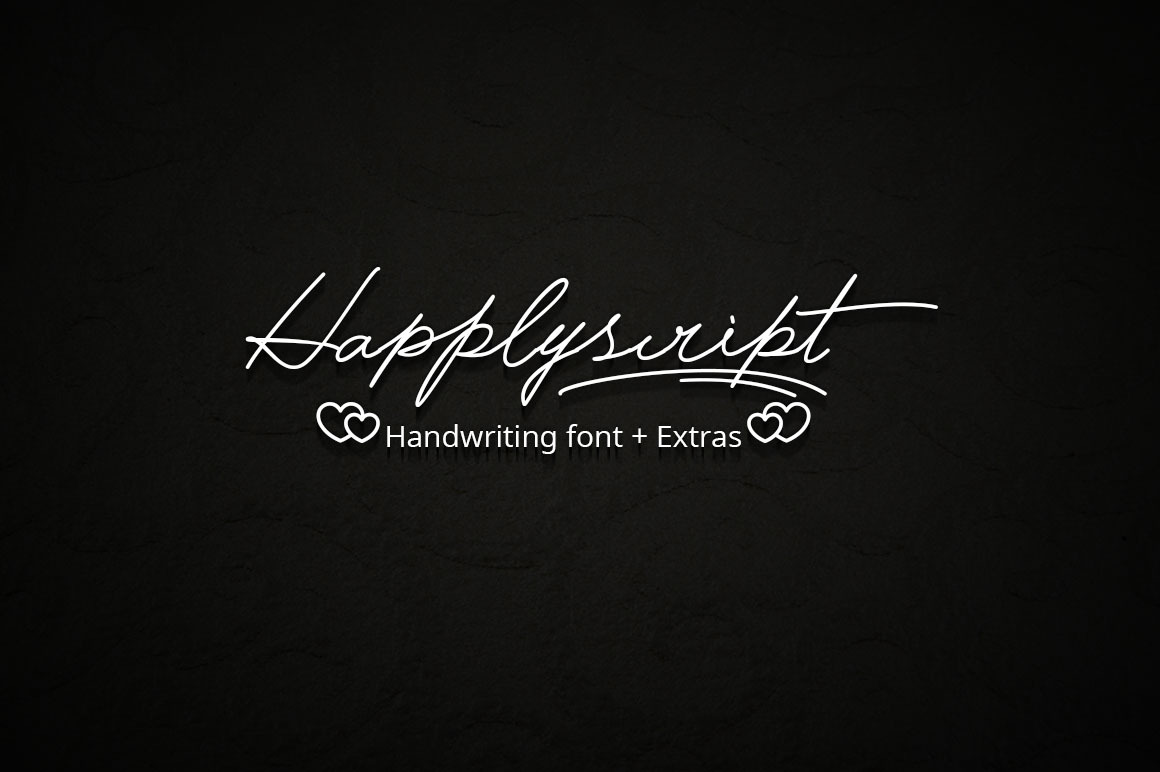
Happlyscript Typeface
Happlyscript is a handwriting font, strokes smooth, suitable for signature and logo etc.. It also contains ligatures and contextual alternates,stylistic alternates, hope you like it.